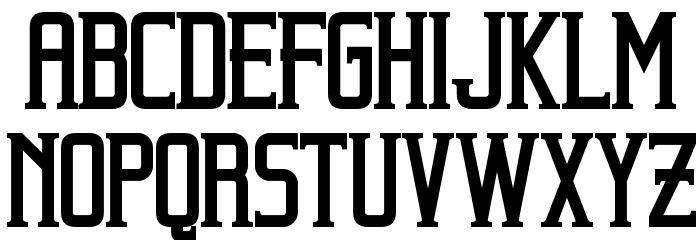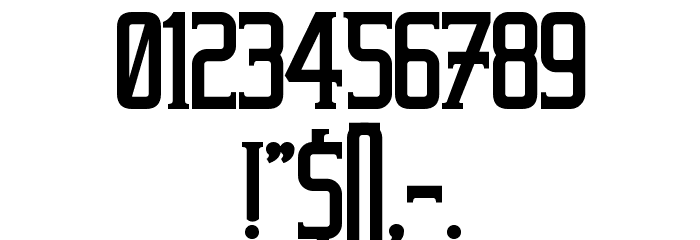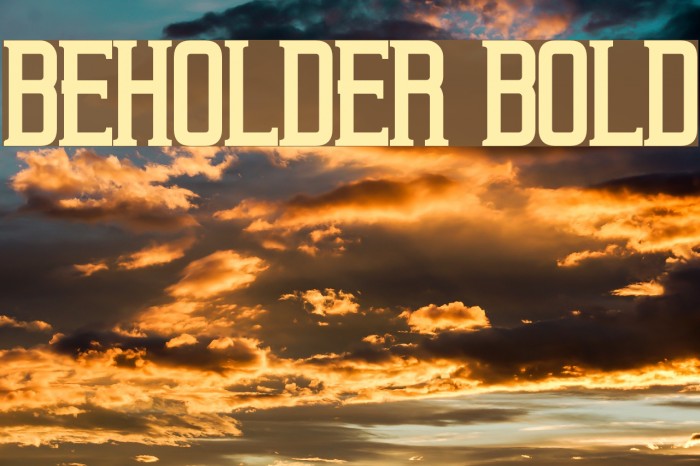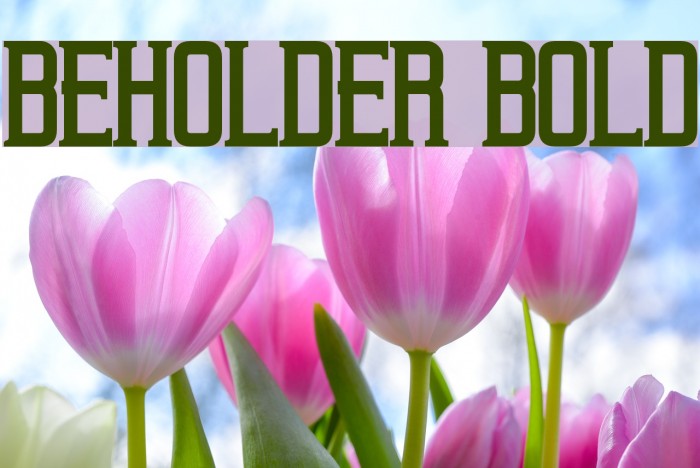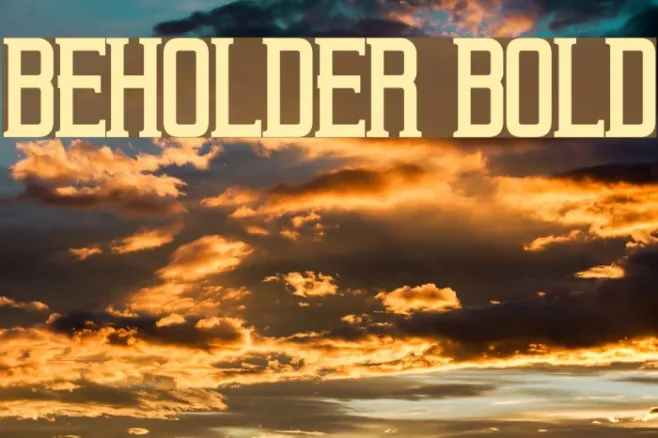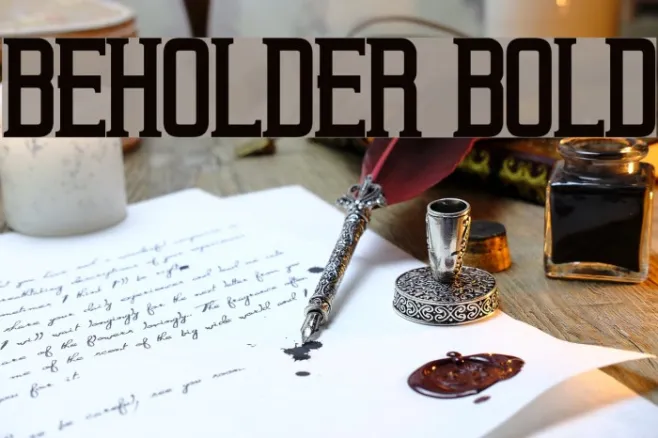
Beholder Bold Font
This font features a bold and striking design with a strong presence. The characters are tall and narrow, giving it a condensed appearance. The strokes are consistent in width, providing a uniform look across all letters and numbers. The uppercase letters have a distinct geometric style, while the lowercase letters maintain a similar structure, ensuring readability. The numbers are clear and easy to distinguish, making them suitable for various applications. Special characters are included, adding versatility to the font's use. Overall, this font is ideal for projects that require a bold and impactful visual statement.
A bold, condensed font with a geometric style and consistent stroke width.
- Proposed Projects: Ideal for headlines, posters, branding, and any design requiring a strong visual impact.